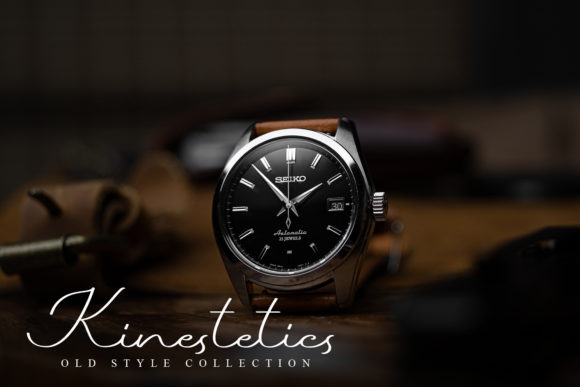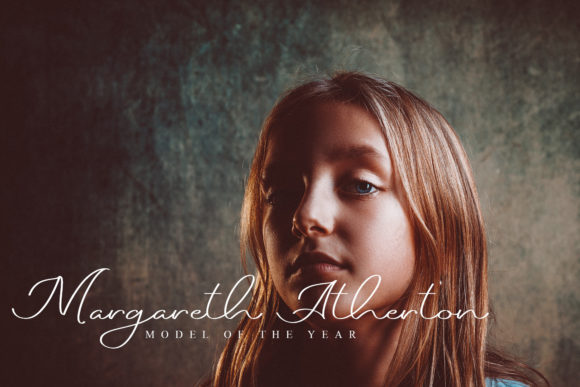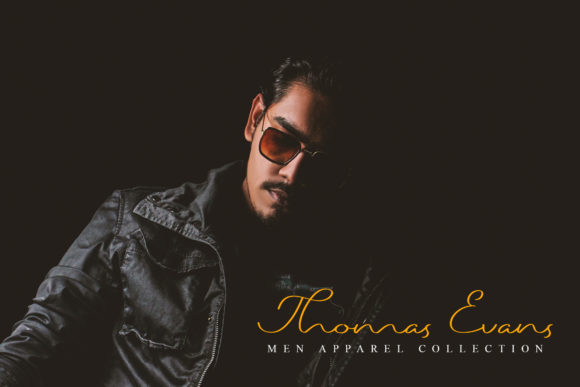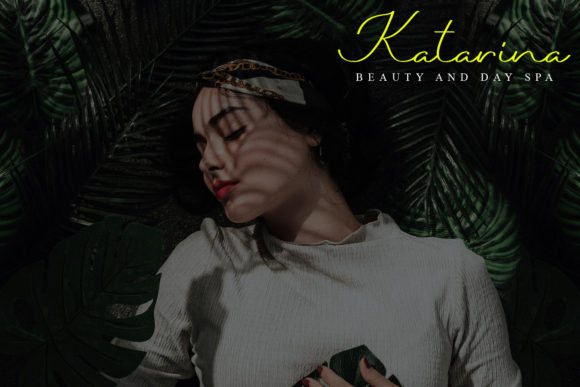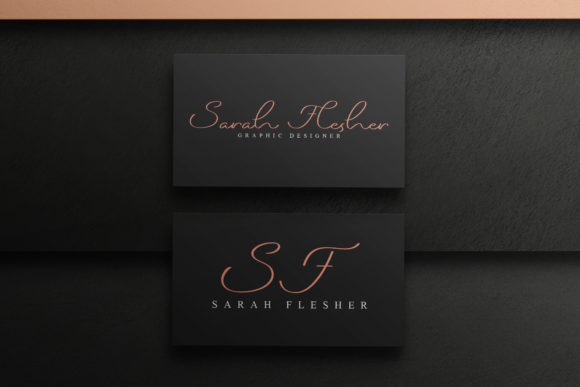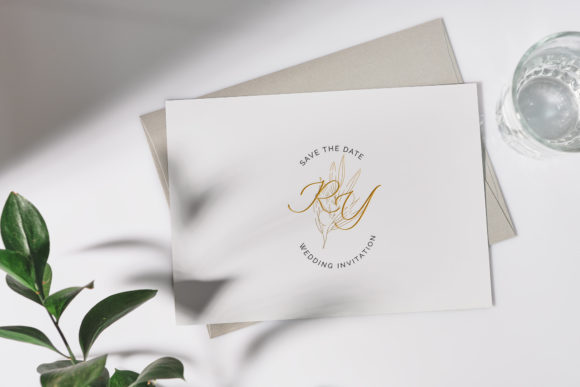
Introducing Authenticity Font: Elevate Your Designs with Timeless Elegance
In the world of typography, few fonts manage to capture the essence of classic calligraphy while still exuding a modern charm. Authenticity Font is one such gem that has been crafted to bring an air of sophistication and elegance to your design projects. Inspired by the timeless beauty of traditional calligraphy, this elegant script font is poised to become a staple in the toolkit of designers and crafters alike.
The Inspiration Behind Authenticity Font
Authenticity Font draws its inspiration from the rich heritage of classic calligraphy, where every letter was a work of art. The creators of this font sought to distill the essence of these timeless scripts into a contemporary design that would appeal to modern sensibilities. The result is a font that feels both nostalgic and fresh, perfect for projects that demand a touch of class and refinement.
Key Features of Authenticity Font
- Contemporary Atmosphere: Despite its roots in traditional calligraphy, Authenticity Font boasts a contemporary atmosphere that makes it suitable for a wide range of design projects, from branding and advertising to packaging and editorial design.
- Impeccable Form: Each letter in Authenticity Font has been meticulously crafted to ensure impeccable form. The thin lettering, balanced and varied, contributes to the font’s elegant appearance, making it a joy to use in any project.
- Versatility: One of the standout features of Authenticity Font is its versatility. Whether you’re working on a luxury brand’s logo, a wedding invitation, or a fashion magazine, this font adapts seamlessly to different contexts, always bringing a level of sophistication and charm.
Why Designers and Crafters Love Authenticity Font
Designers and crafters are always on the lookout for fonts that can help their projects stand out. Authenticity Font offers several reasons why it has become a favorite among creative professionals:
- Elegance: The font’s elegant script style adds a touch of luxury to any project, making it ideal for high-end branding, editorial content, and special event materials.
- Readability: Despite its decorative nature, Authenticity Font maintains a high level of readability, ensuring that your message is conveyed clearly and effectively.
- Customization: The varied and balanced design of Authenticity Font allows for a high degree of customization. Designers can play with different sizes, colors, and arrangements to create unique visual hierarchies and emphasize key elements.
Using Authenticity Font in Your Projects
Incorporating Authenticity Font into your design workflow is straightforward. Here are a few tips to get you started:
- Pair it with Contrasting Fonts: For maximum impact, pair Authenticity Font with simpler, sans-serif fonts. This contrast will help highlight the elegance of the script font while maintaining readability in body text.
- Experiment with Colors: While Authenticity Font looks stunning in traditional black and white, don’t be afraid to experiment with colors. Metallic inks, pastels, or bold hues can add an extra layer of personality to your designs.
- Play with Size and Weight: The thin lettering of Authenticity Font offers a range of possibilities for creative expression. Experiment with different sizes and weights to create visual interest and hierarchy in your designs.
| Font Name | Authenticity Font |
| Author | Doehantz Studio |
Authenticity Font is more than just a typeface; it’s a design statement. With its elegant script style, contemporary atmosphere, and impeccable form, it offers designers and crafters a powerful tool to elevate their projects. Whether you’re aiming to create a luxurious brand identity, a beautiful editorial spread, or a memorable advertising campaign, Authenticity Font is sure to bring a touch of timeless elegance to your work. Discover the possibilities with Authenticity Font and let your designs speak with authenticity and style.